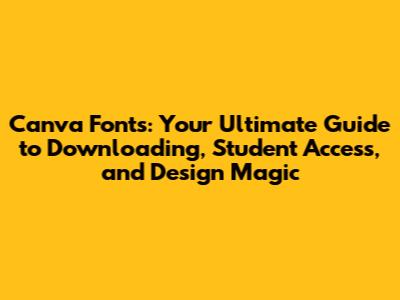
- Font Looks Different: Ensure the font is designed to be used in various sizes, otherwise, the display can be compromised. Test the font in multiple sizes to verify it looks the way you want. Sometimes, there might be subtle differences in how a font renders in Canva compared to other programs. If you really want it to look perfect, the image workaround is your friend.
- Font Doesn't Support Certain Characters: Some fonts have limited character sets. Make sure the font supports the characters and symbols you need. If not, you might need to find a different font or use alternative symbols.
- Expanded Font Library: Access to a vast library of fonts, including those you would have to pay for in the standard version. Your creative options explode!
- Collaboration Tools: Ability to collaborate with classmates and teachers on projects in real-time. This is perfect for group assignments and presentations.
- Classroom Management: Teachers can create classrooms, assign projects, and track student progress. Making teaching and learning way easier.
- No Cost: Canva for Education is usually completely free for eligible students and teachers. Score!
- Presentations: Create stunning presentations that go way beyond boring slideshows. Engage your audience with visuals, animations, and interactive elements.
- Posters and Flyers: Design posters, flyers, and other materials for school events, projects, and announcements.
- Social Media Graphics: Create eye-catching graphics for social media to promote school activities or showcase student work.
- Infographics: Turn complex information into visually appealing infographics that make learning fun and easy.
- Video Creation: Create short videos and animations for educational purposes. Canva has great video editing tools that are surprisingly easy to use.
- Contrast is Key: Pair a bold font with a lighter font, or a serif font with a sans-serif font. This creates visual interest and makes your text easier to read.
- Limit Your Fonts: Don't go overboard. Stick to two or three fonts maximum. Too many fonts can make your design look cluttered and unprofessional. Keep it simple and focused.